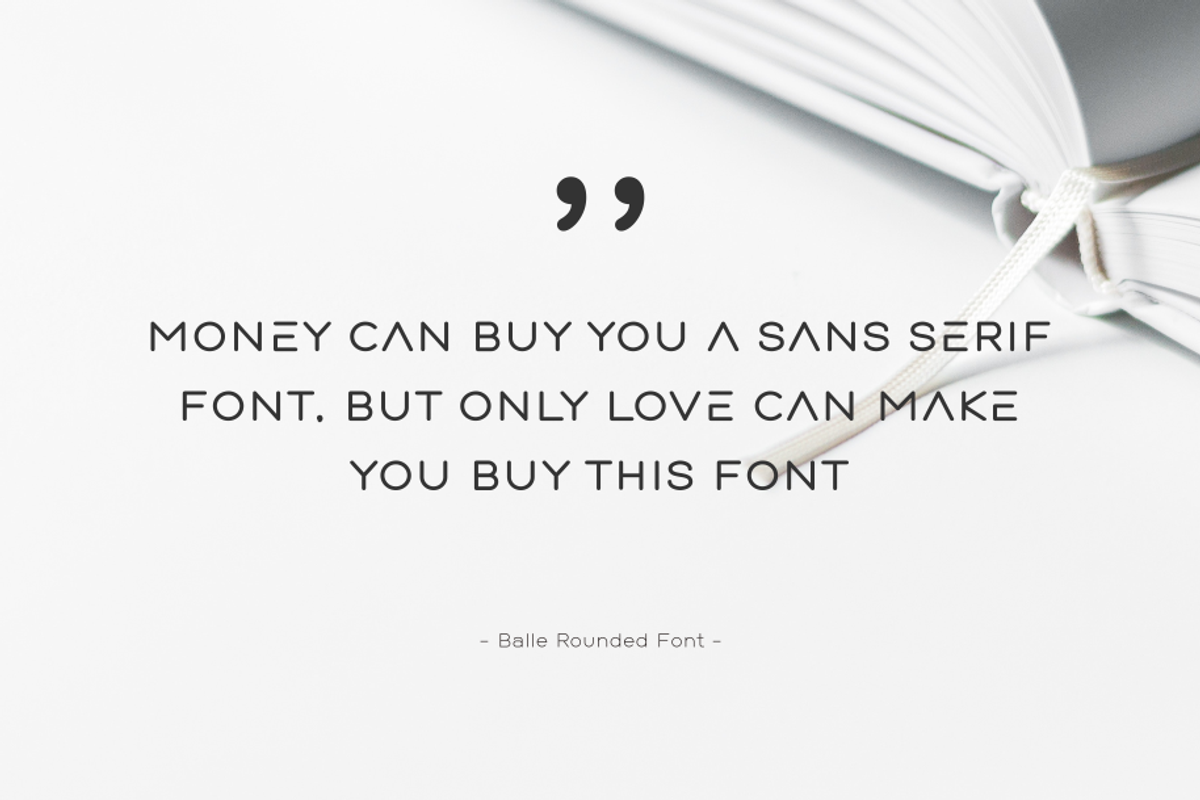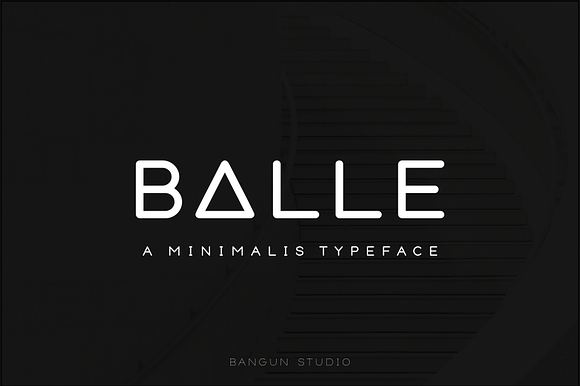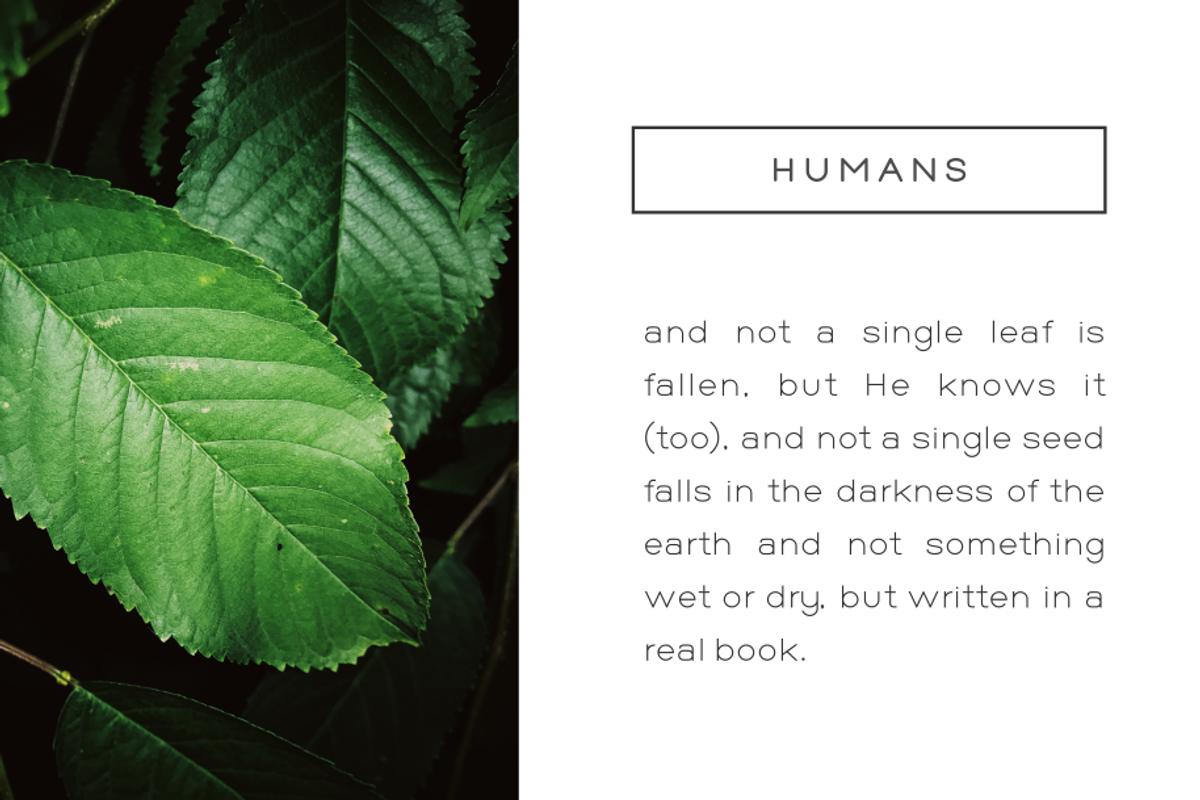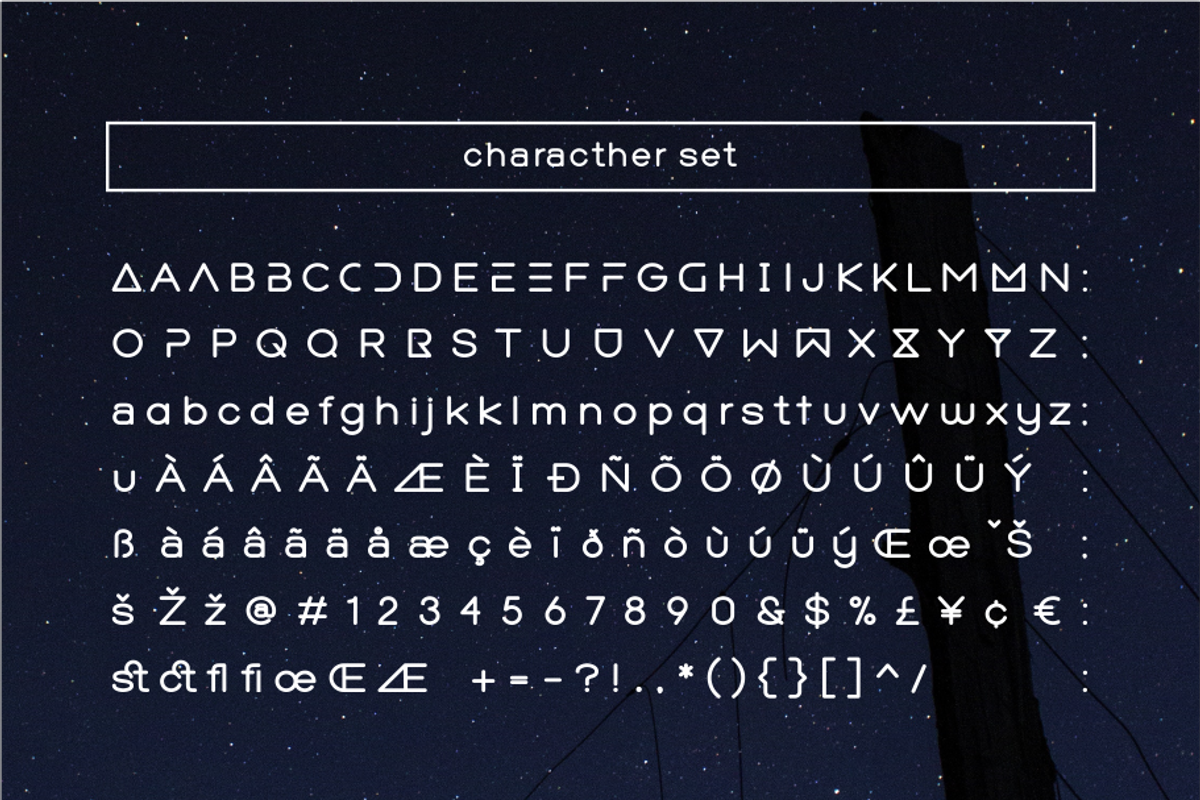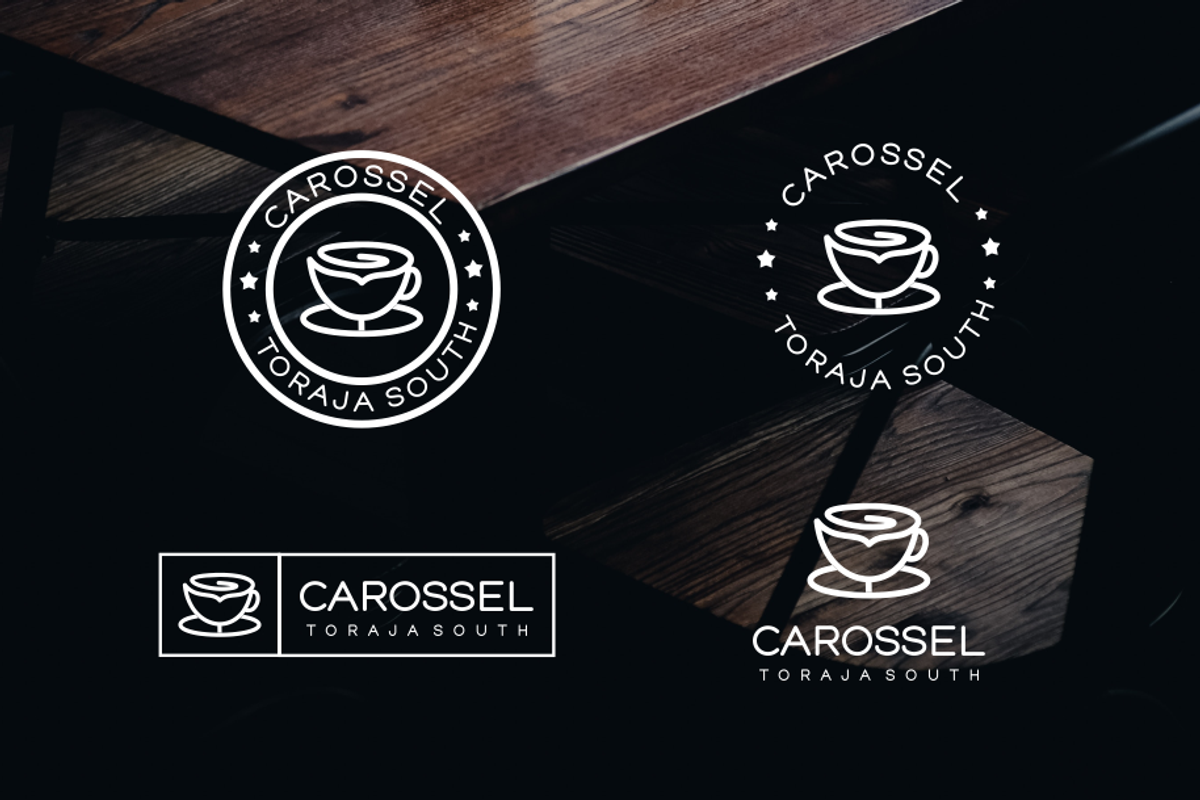
BALLE (Rounded Font)
minimalis rounded typeface it’s perfect for namecard, poster, logo, magazine, cover, banner, tshirt and headers, logo and other any business related.
A new Balle font family :